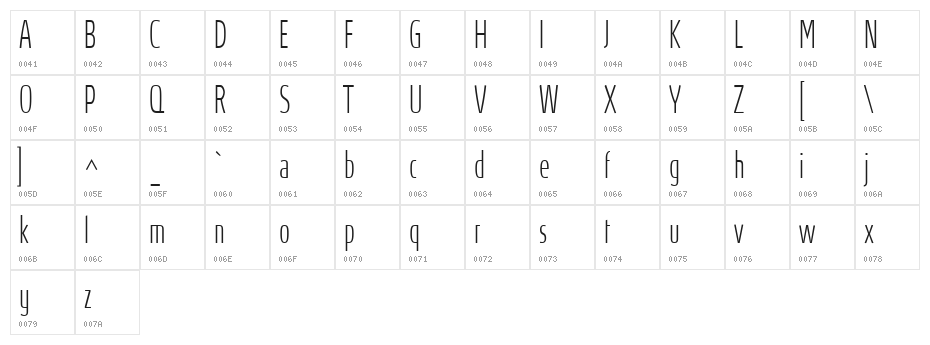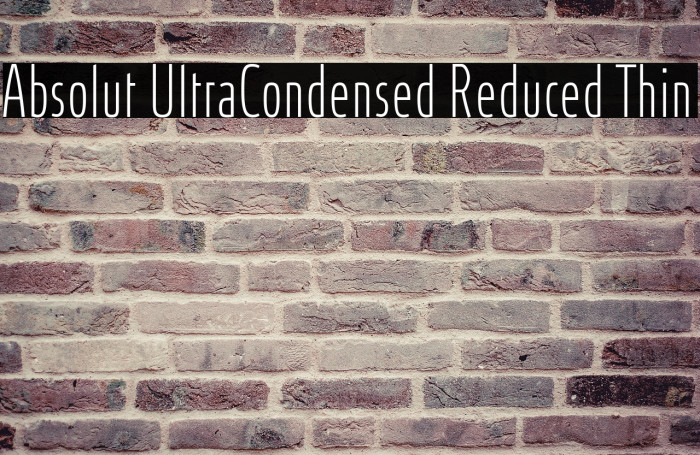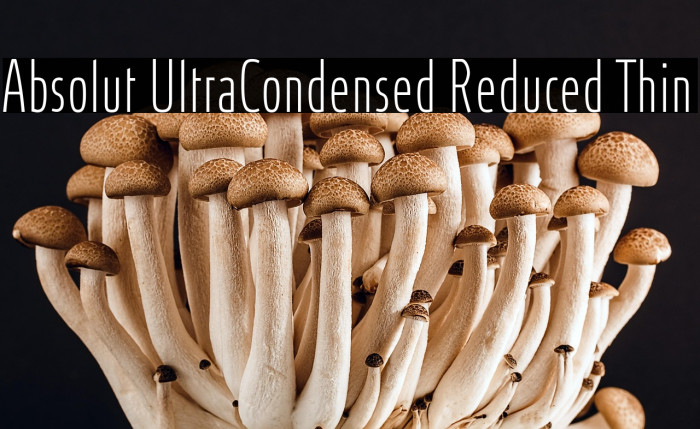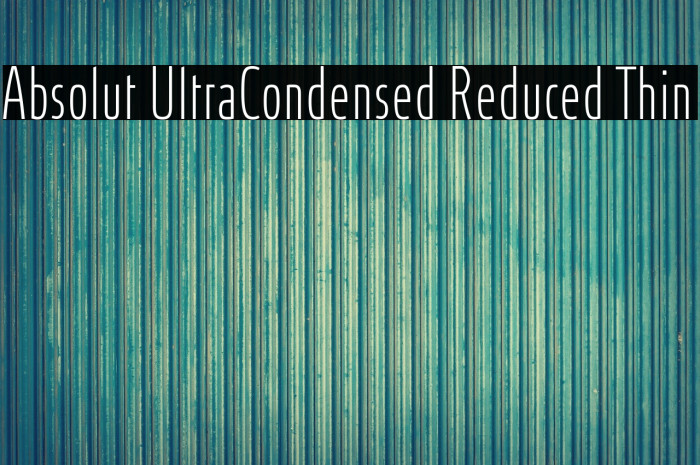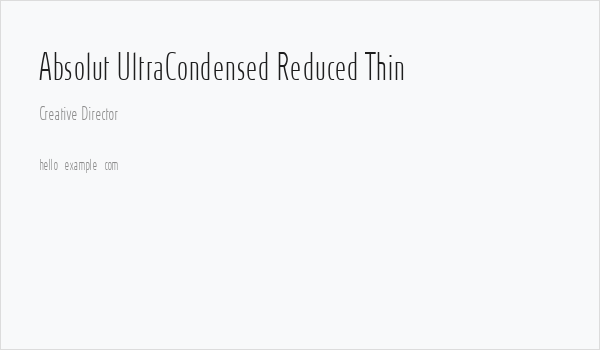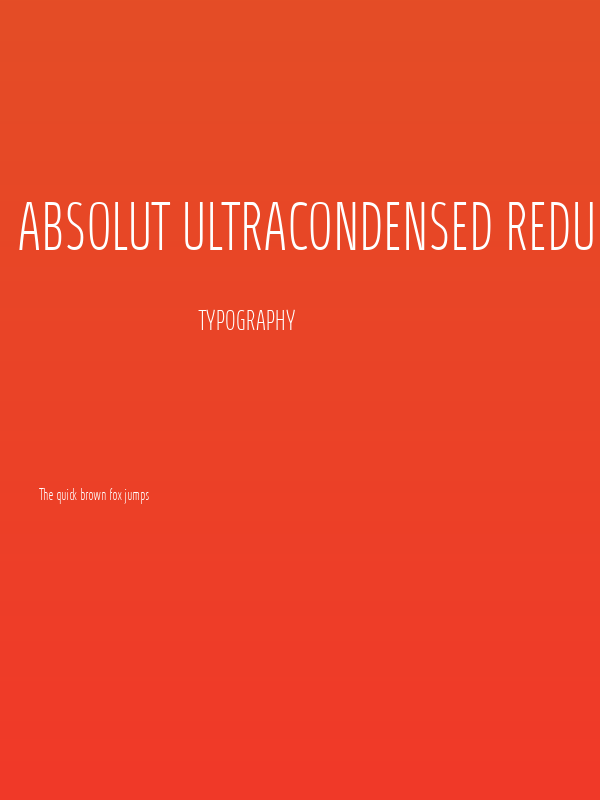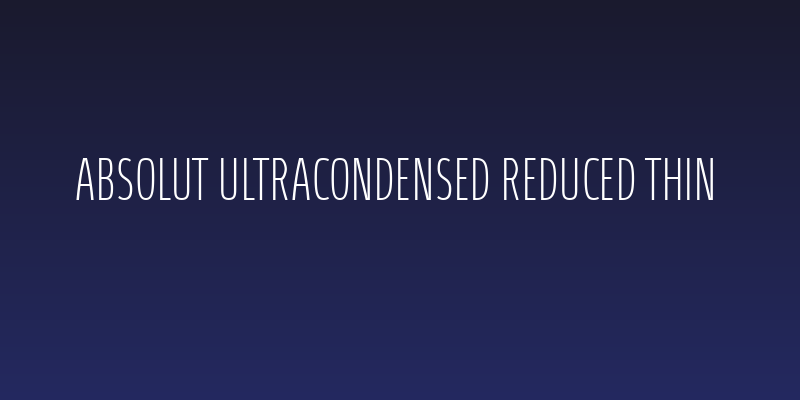
Absolut UltraCondensed Reduced Thin Font
Absolut UltraCondensed Reduced Thin Description
This typeface features an ultra-condensed and reduced design, characterized by its thin, elongated letterforms. The vertical emphasis and narrow width create a sleek and modern appearance, making it ideal for space-saving applications. The uniform stroke width contributes to a clean and minimalist aesthetic, while the tall x-height ensures readability even at smaller sizes. The font's simplicity and elegance make it versatile for various design contexts, from digital interfaces to print media.
| Use Case | Headlines, Logos, Digital Interfaces |
| Proposed Projects | Ideal for modern branding, minimalist posters, digital interfaces, and editorial design where space is limited. |